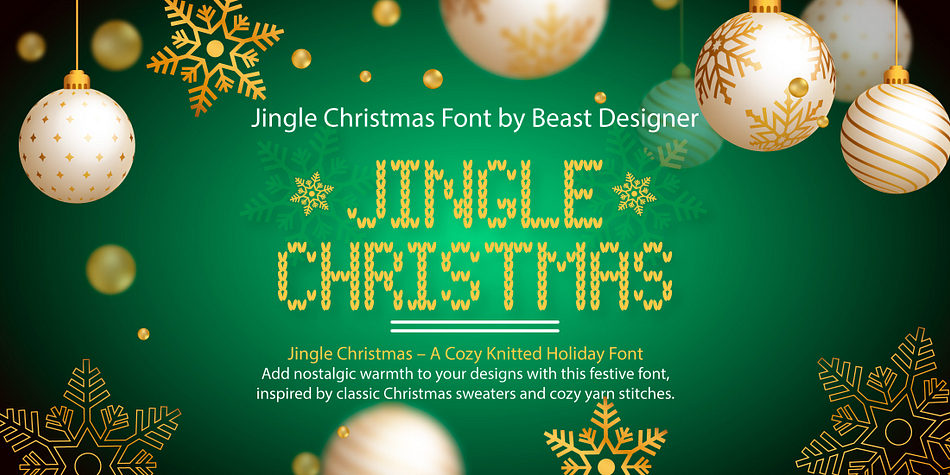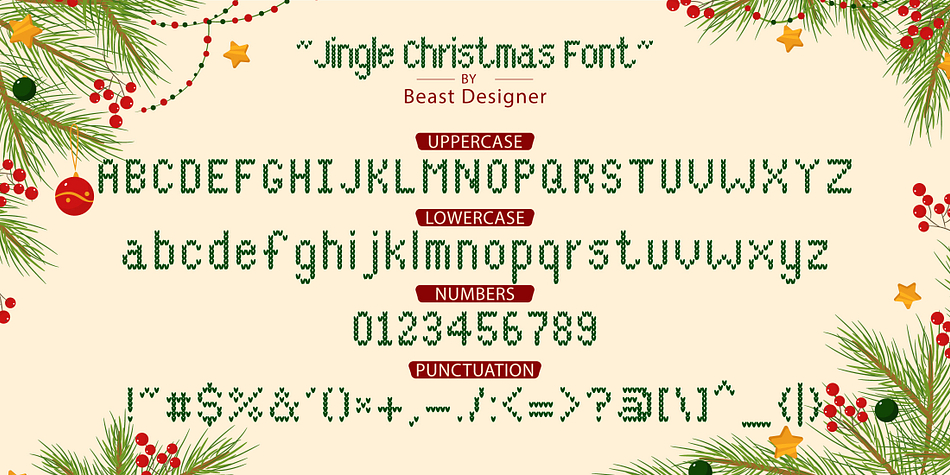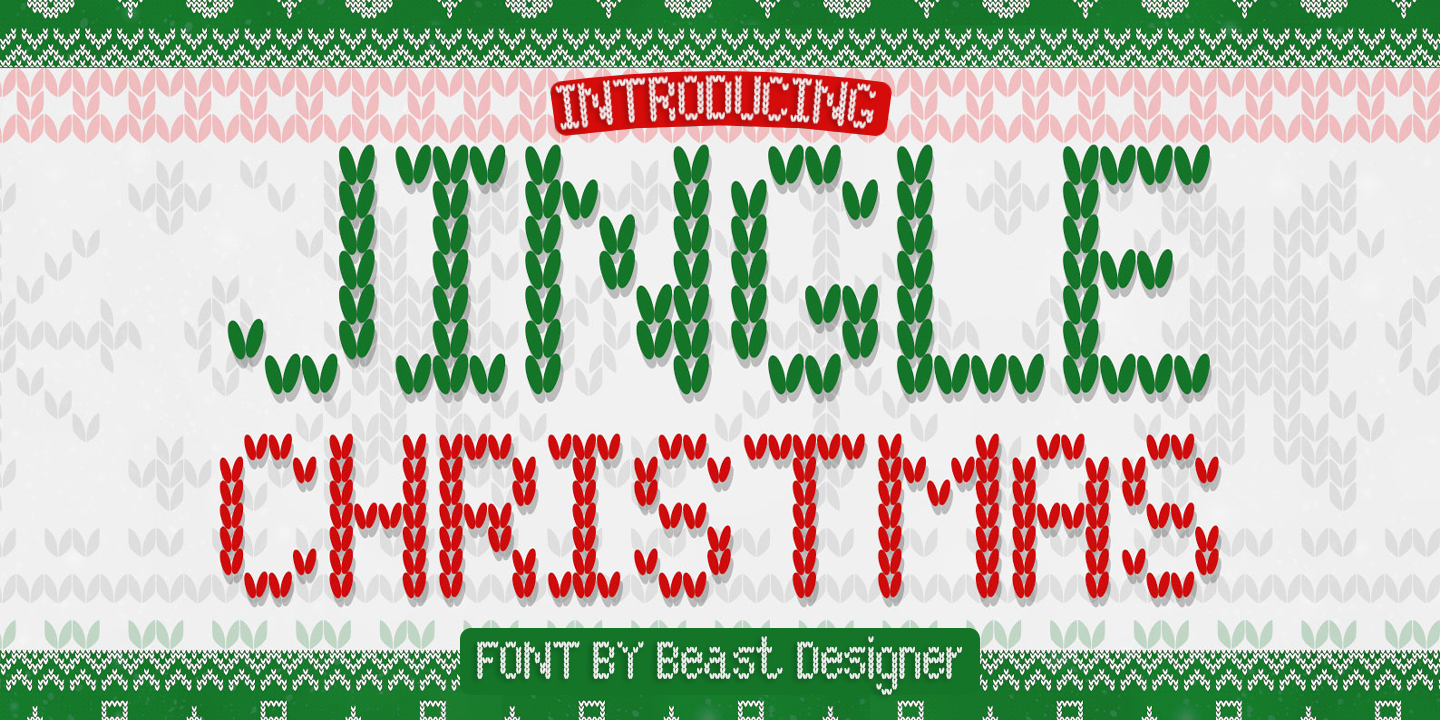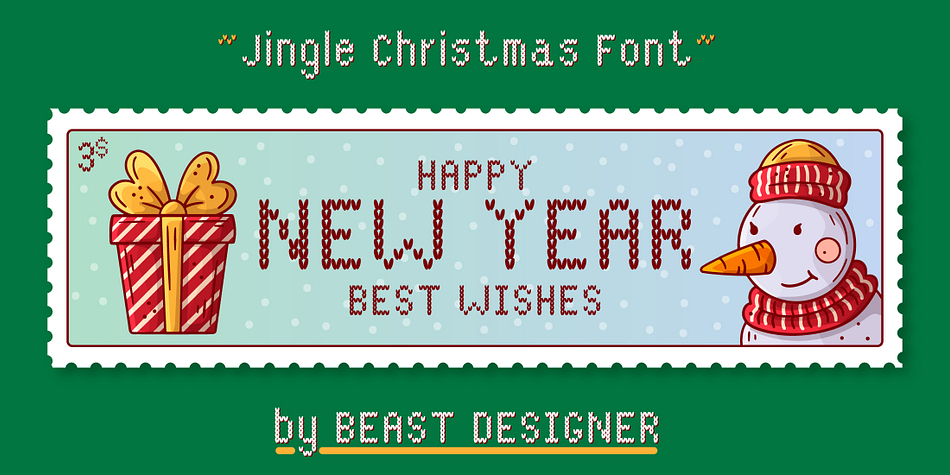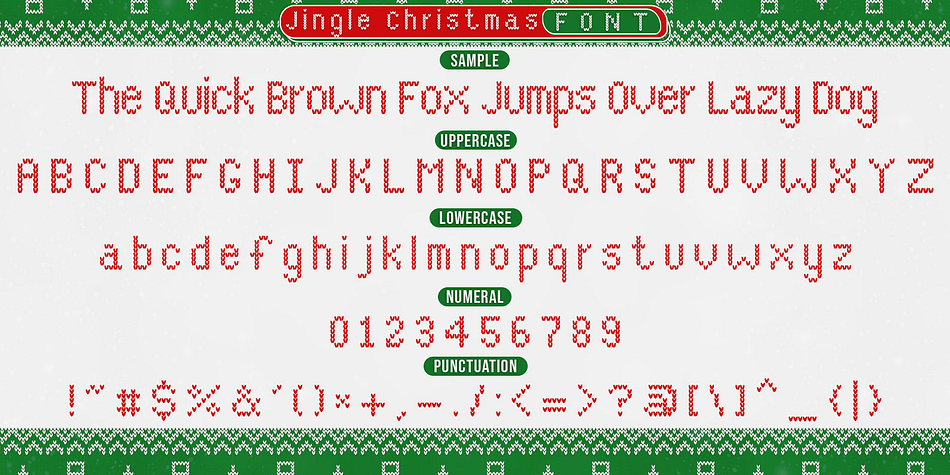
Jingle Christmas
Designed by Mohammed Lamjidi, Jingle Christmas is a novelty font family published by Beast Designer.
Jingle Christmas – A Cozy Knitted Holiday Font
Wrap your designs in warmth and holiday cheer with Jingle Christmas, a charming knitted font inspired by classic Christmas sweaters. Each letter is lovingly crafted to mimic the texture of cozy yarn stitches, making it perfect for holiday cards, winter invitations, gift tags, festive branding, and cheerful social media posts. Whether you’re designing for Santa’s workshop or a snowy cabin retreat, Jingle Christmas brings a touch of nostalgic warmth and handmade magic to every project.